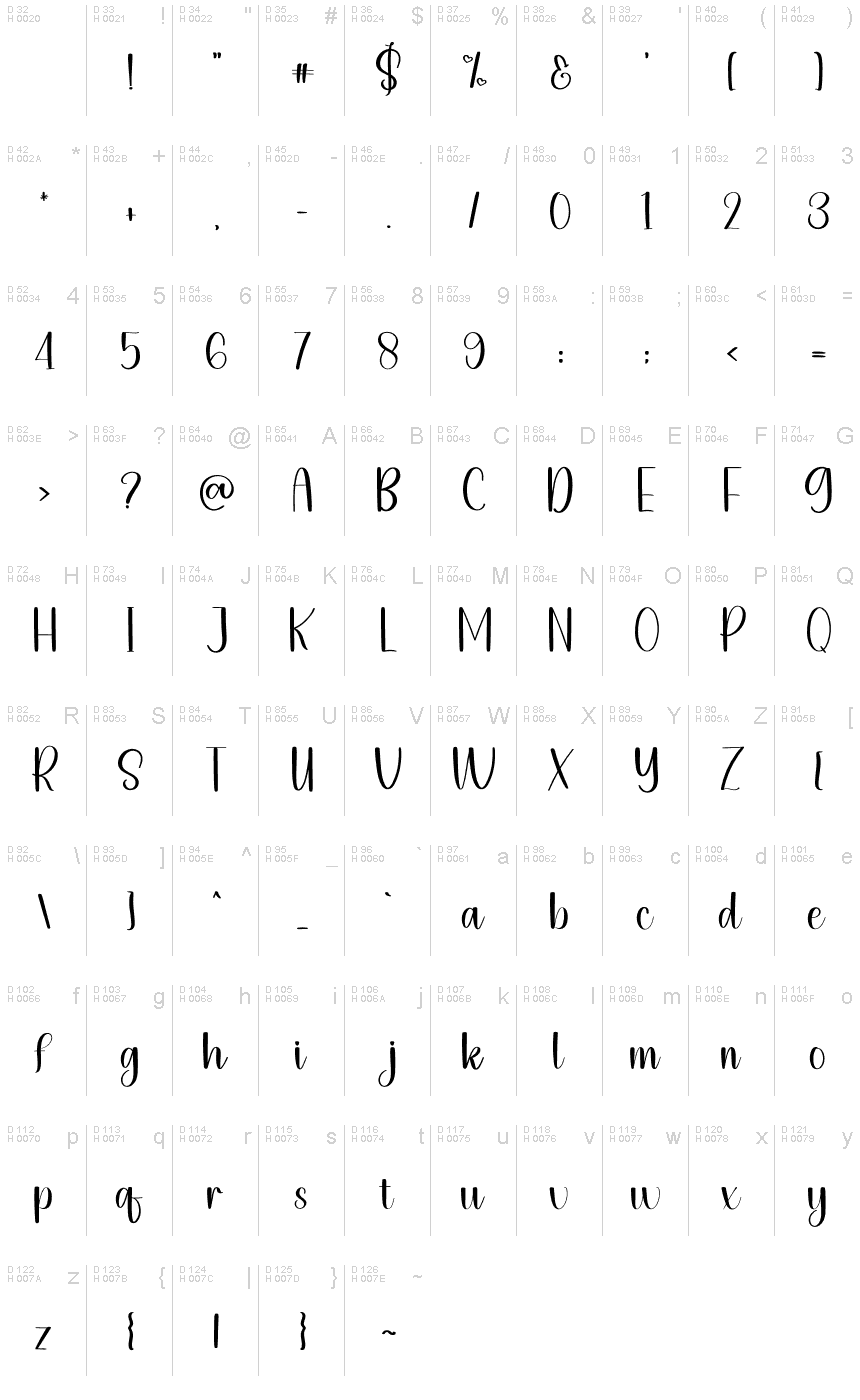
Christmas Soulmate
Christmas Soulmate, designed by Inermedia Studio, exudes a warm, personal touch with its handwritten style and semi-light weight. Its charming cursive lettering invites a sense of intimacy and festivity, making it an excellent choice for holiday-themed projects that require a touch of elegance and nostalgia.
The gentle flow of the letters in Christmas Soulmate suggests a casual grace, perfect for personal greetings, bespoke gift tags, or any creative endeavor that calls for a handwritten aesthetic with a sprinkle of yuletide cheer. This font stands out for its ability to marry the traditional sentiments of the season with the contemporary appeal of artisanal design.